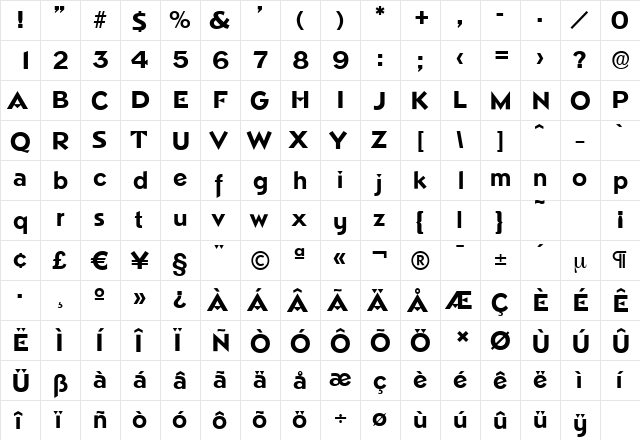
NapoliSerial-Xbold Regular Font Preview
NapoliSerial-Xbold Regular
NapoliSerial-Xbold Regular Font Details
Design Context for NapoliSerial-Xbold Typeface
NapoliSerial-Xbold offers clean, dependable letterforms without strong stylistic allegiance, making it a practical choice for designers who need flexibility. The heavy weight commands attention and anchors typographic hierarchies.